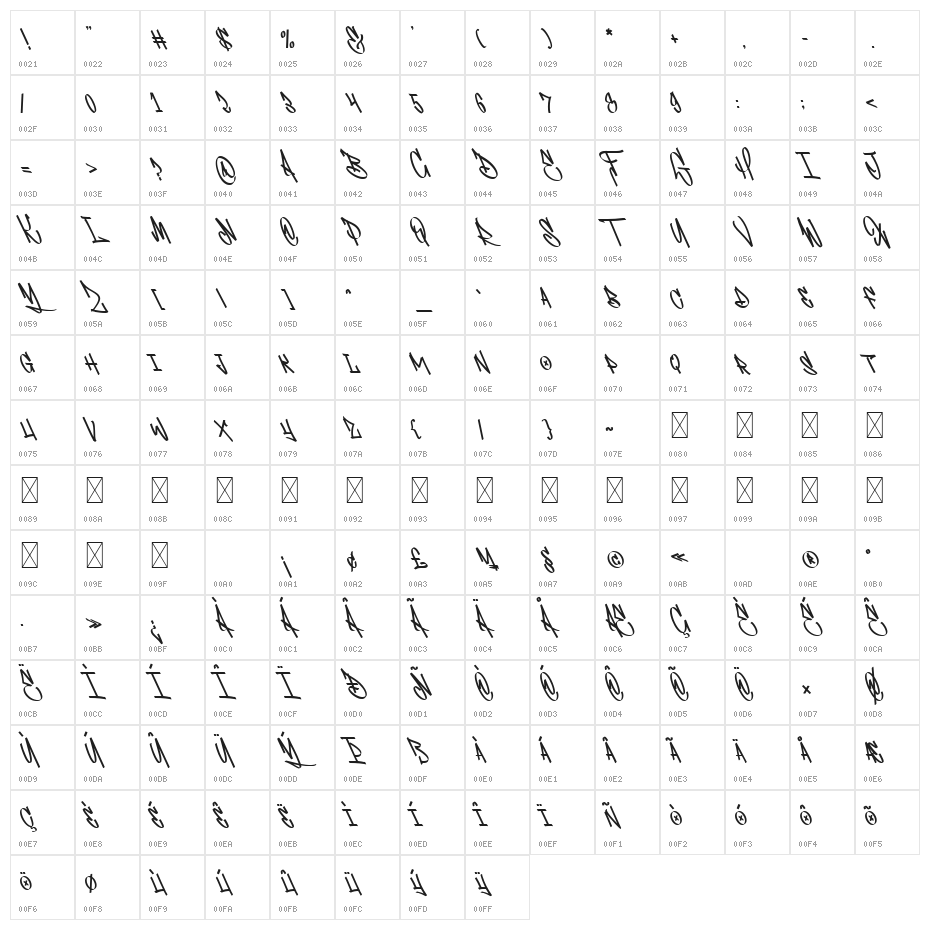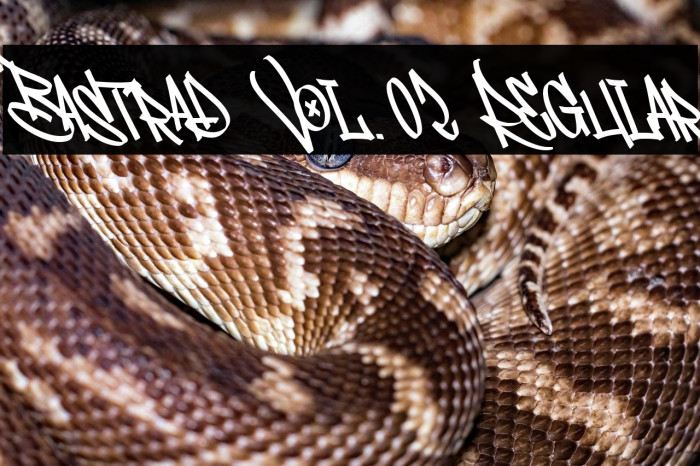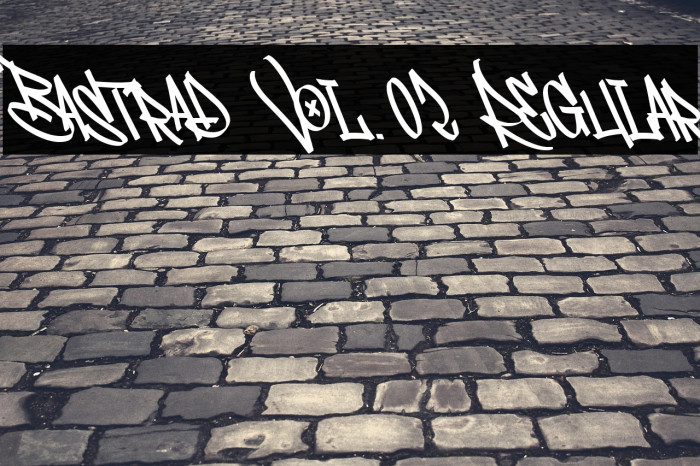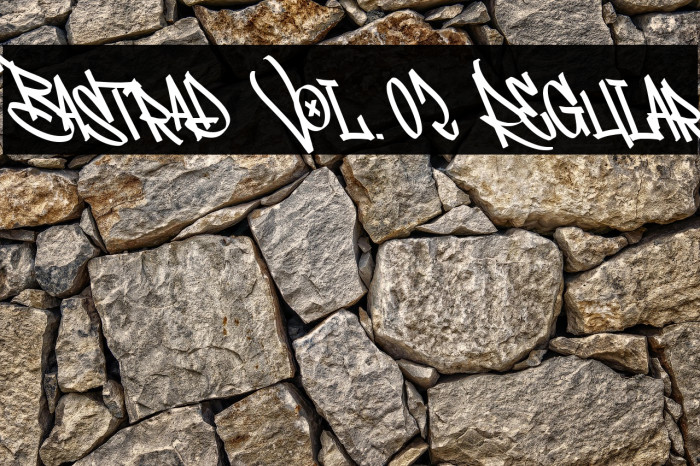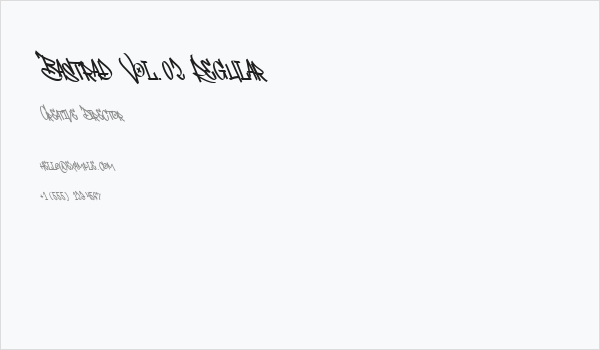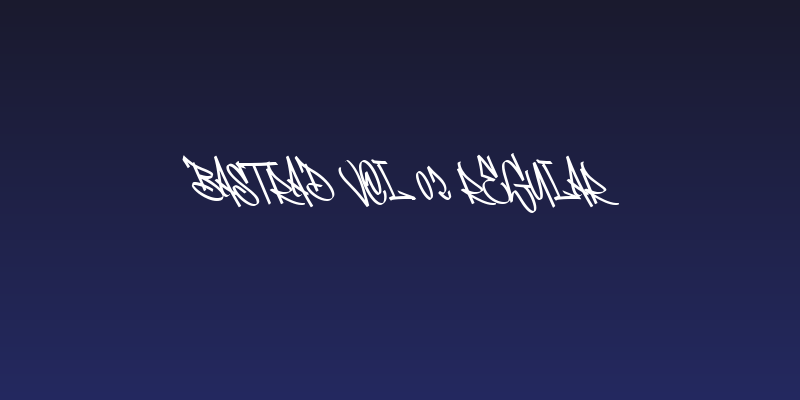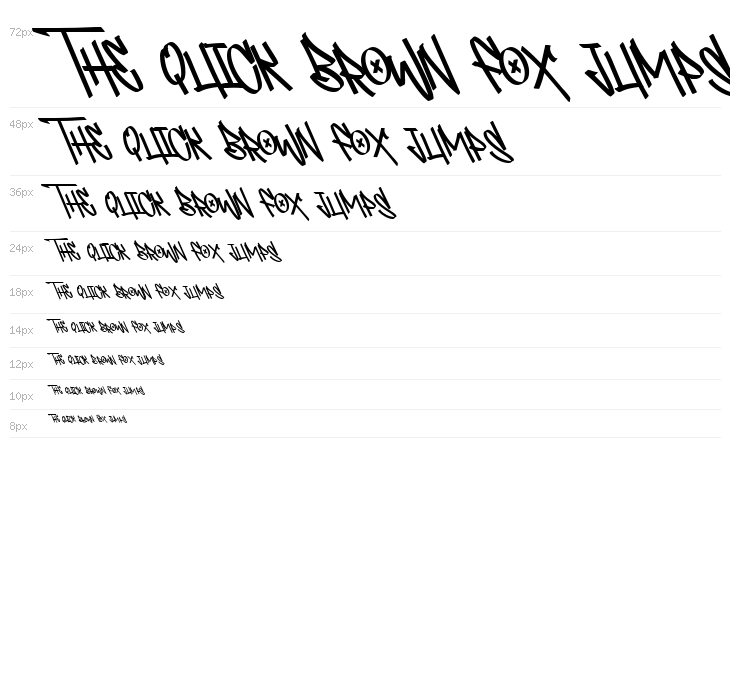
Bastrad Vol.02 Regular Font
Bastrad Vol.02 Regular Description
This font exhibits a dynamic and edgy graffiti style, characterized by its sharp angles and flowing lines. The uppercase and lowercase letters are designed with a sense of movement and energy, reminiscent of street art. The characters are tightly spaced, enhancing the compact and bold appearance. Numbers and special characters maintain the same artistic flair, making them suitable for creative and urban-themed projects. The overall style is distinctly modern and rebellious, capturing the essence of urban culture.
| Proposed Projects | Ideal for street art designs, urban-themed posters, music album covers, and edgy branding projects. |